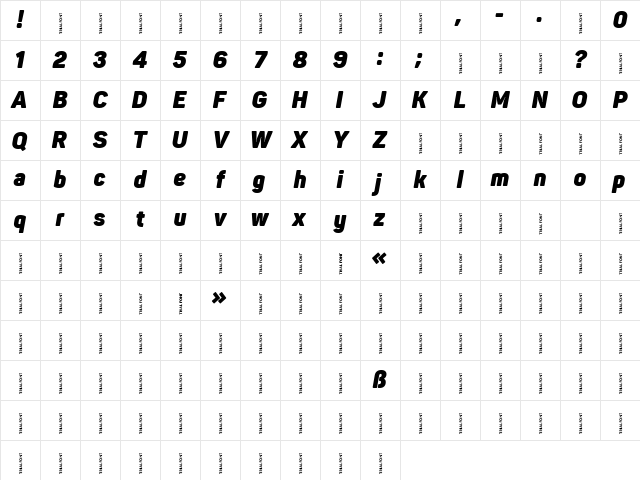
Complete Panton Narrow-Trial Heavy Italic glyph index. Displaying only characters natively supported by Panton Narrow-Trial Heavy Italic font.
Panton Narrow-Trial Heavy is a composed and adaptable typeface that performs quietly and consistently across a wide range of design contexts. The slanted form adds forward momentum and visual energy. Its narrow stance lets it pack a punch even in space-constrained designs.
Pro Tip: Use Panton Narrow-Trial Heavy for emphasis, pull quotes, and subheadings where its slanted energy can add rhythm to the layout.